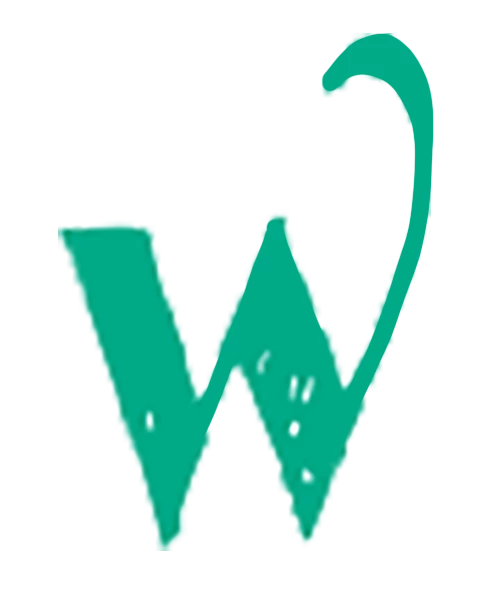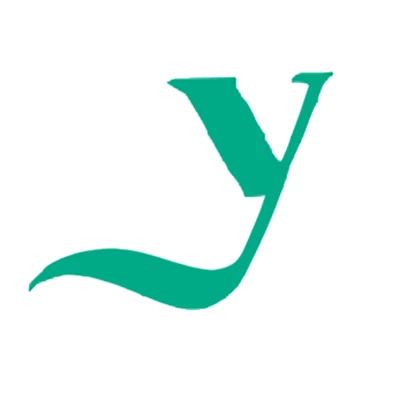
I need help finding this font
I need help finding this font. I've looked for days and can't seem to find it, or anything similar.
I have a client that had someone (probably a neighbor or someone just starting out) create her logo years ago, but she doesn't have any of the native files. I suspect she never received any to begin with. I am trying to re-create it and have found 2 of the 3 fonts used. These images are very crude, but all I have are very (extremely) small jpg files of her logo. The font in question is the letters used in "wisted" and "illy".
Can someone help identify it?
The large "T", "F" and "C" letters and small "CO." letters look like Texas Tango "Extra Roth" (with some artificial squeezing of the letters involved). The "lothing" letters in "Clothing" look like The Dead Saloon. That's at least two fonts that are a match.
the "wisted" "illy" letters and "THE" are a mystery.